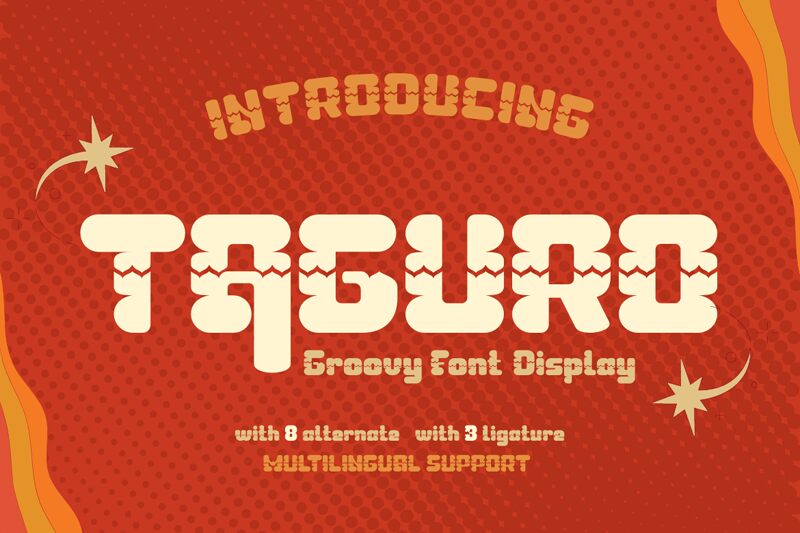
TAGURO-Regular
Taguro, designed by twinletter, stands out as an audacious display font that brings a blend of retro charm and contemporary flair to the table. Its groovy style is characterized by an extra-bold weight and a semi-expanded width that commands attention and sets a tone of confidence. The curves and lines of Taguro evoke the free-spirited boldness of vintage design while maintaining a sleek modern edge.
The font's aesthetic appeal lies in its ability to straddle different eras, making it an excellent choice for projects aiming to make a strong visual statement. From poster designs to branding, Taguro's distinctive look can inject personality into creative works that aim to stand out. Whether you're crafting a logo that needs to exude strength or developing marketing materials with impact, Taguro is engineered to deliver style without compromise.